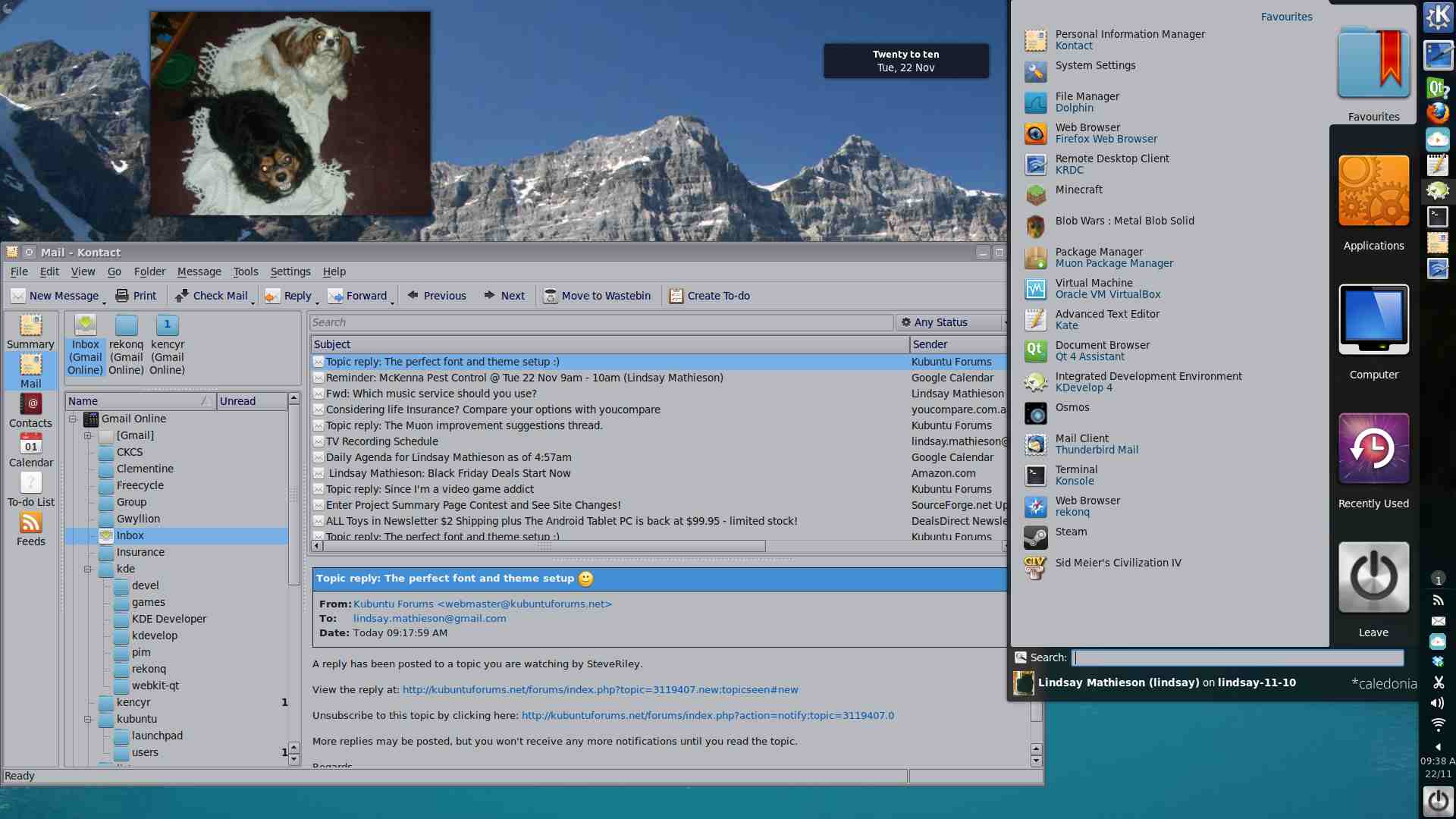
This is all very subjective of course
But for me, I actually quite like the look of the widgets in ubuntu/gnome, I find the text exceptionally clear and readable, contrast is good and the widget look soothing. The default KDE setup I find to washed out, low in contrast and the fonts so so.
I've done a fair bit of digging in ubuntu and have come up with the following setup. Of course all options are subject to individual preference but I feel the font setup will appeal to just about everybody.
System Settings|Application Appearance|Fonts
Fonts:
Then restart X - rebooting is probably easiest. You should now have a nice clean medium contrast easy on the eye KDE look.
But for me, I actually quite like the look of the widgets in ubuntu/gnome, I find the text exceptionally clear and readable, contrast is good and the widget look soothing. The default KDE setup I find to washed out, low in contrast and the fonts so so.I've done a fair bit of digging in ubuntu and have come up with the following setup. Of course all options are subject to individual preference but I feel the font setup will appeal to just about everybody.
System Settings|Application Appearance|Fonts
- Anti Aliasing:enabled
- Use Sub Pixel Rendering:True
- Hinting Style:Slight
- Force Fonts DPI:96 DPI (probably not necessary)
Fonts:
- Set all fonts to Bitstream Sans Vera 10 except Fixed Width
- Set Fixed Width to Monospace 10
- Set Window Title to Bold
Then restart X - rebooting is probably easiest. You should now have a nice clean medium contrast easy on the eye KDE look.